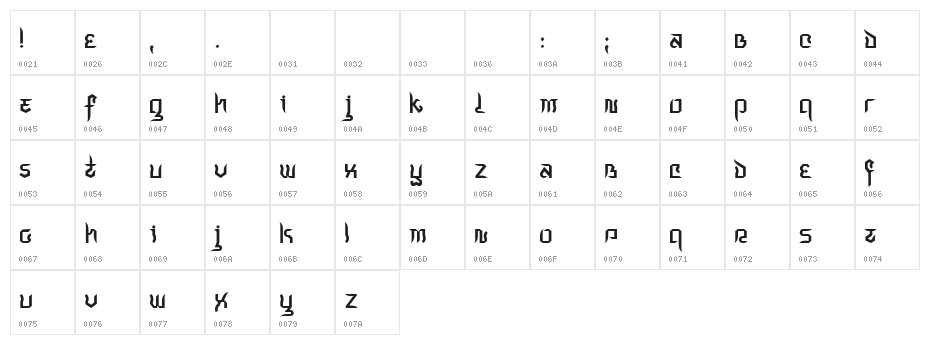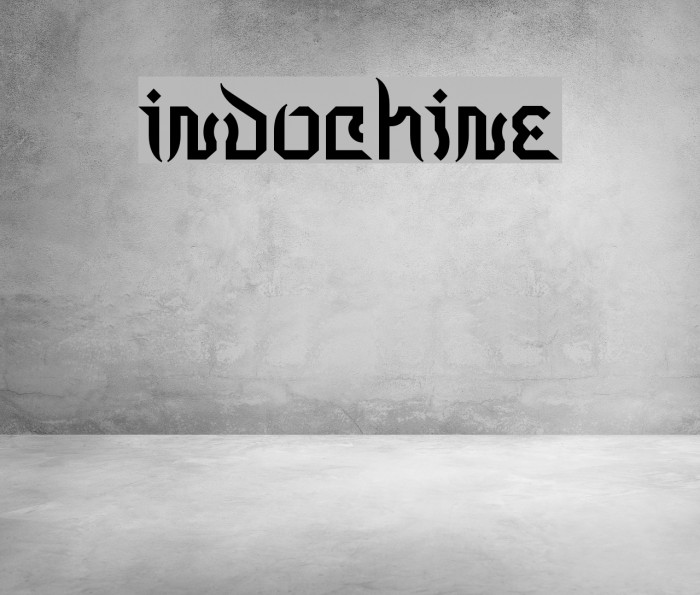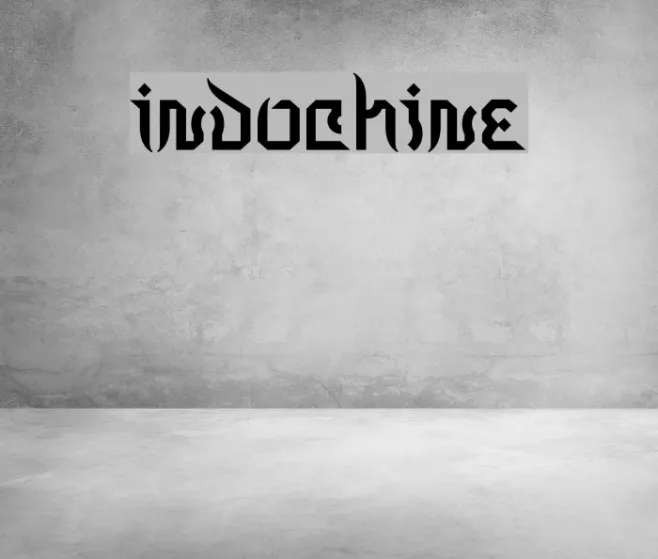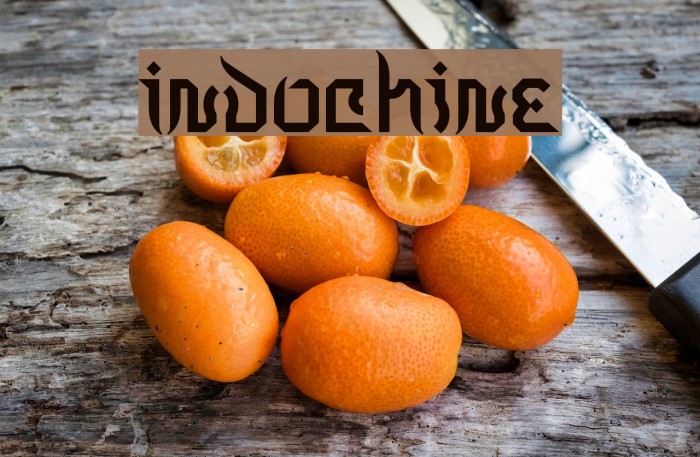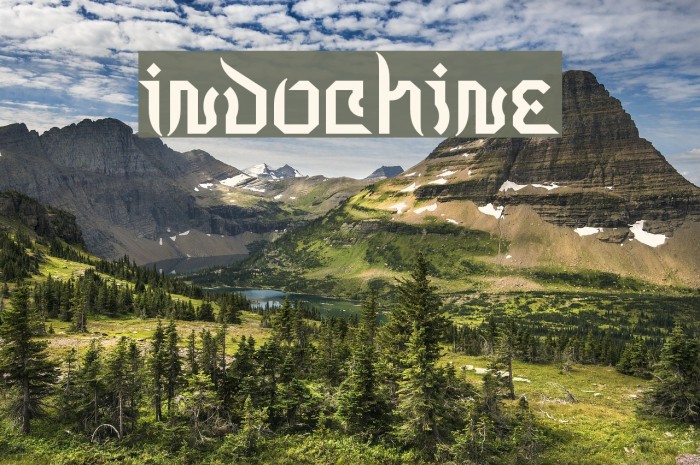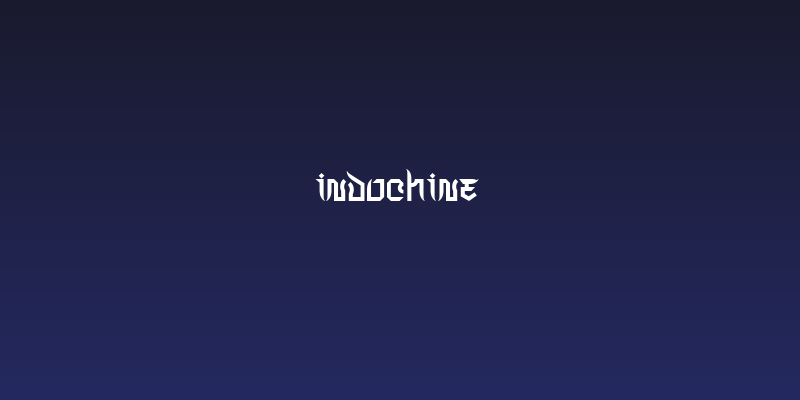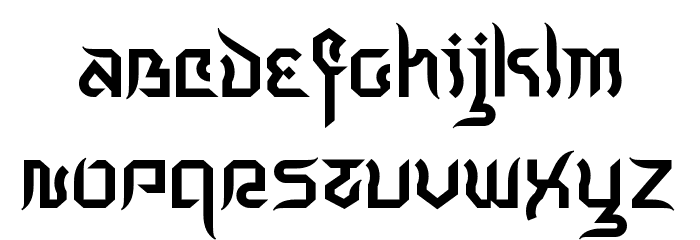
Indochine Font
Indochine Description
This font features a bold and angular design, reminiscent of traditional Asian calligraphy with a modern twist. The characters are sharply defined with a geometric structure, giving them a distinct and striking appearance. The uppercase and lowercase letters maintain a consistent style, with unique flourishes that add to their visual interest. The numerals and special characters follow the same design principles, ensuring a cohesive look across all glyphs. This font's strong presence makes it ideal for creating impactful designs.
| Proposed Projects | Ideal for branding, posters, and cultural event materials where a strong, distinctive look is desired. |